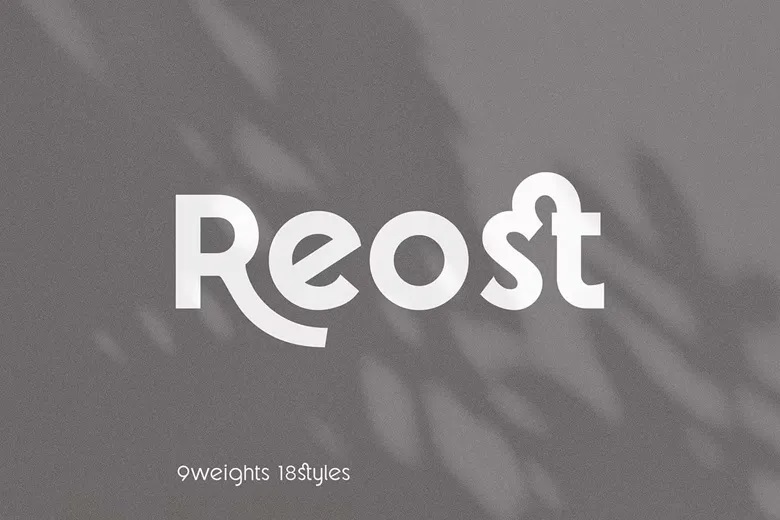
Reost Font Family
Reost Font is based on a geometric approach because the system is supposed to fit into any kind of layout and space, and measures have been taken to avoid contrast distortion due to the interpolation deformation.
As for the cute factor, it’s the only keyword that can describe this project on its own accord. Therefore your design work will be fun and enjoyable since elegant ligatures are already available. And creative Alternates are included.
Reost Sans Serif Font Family